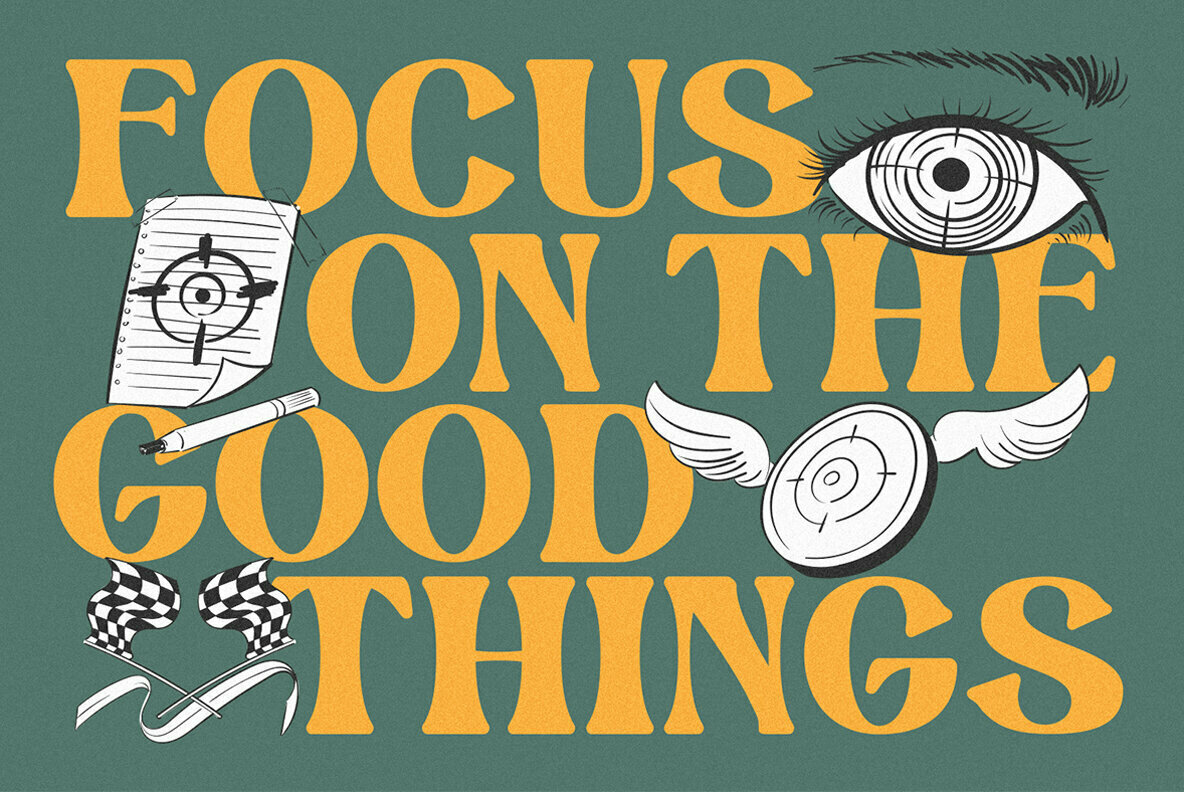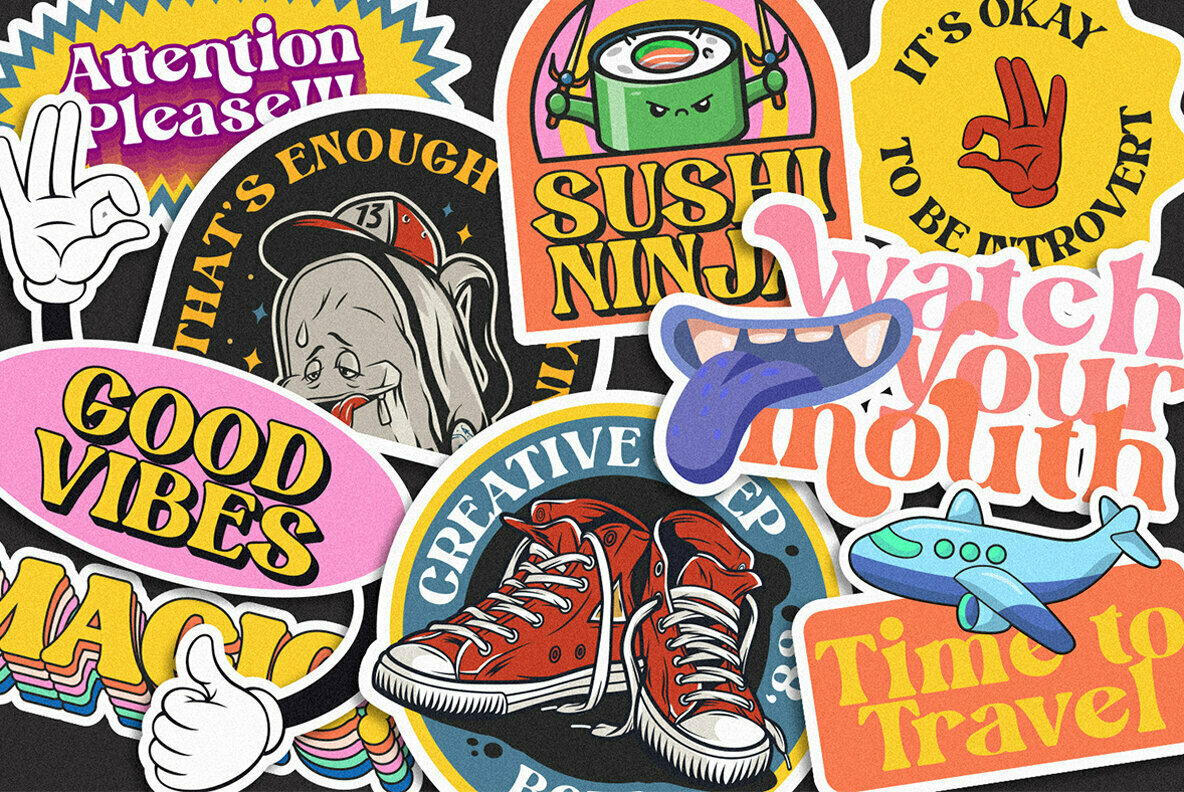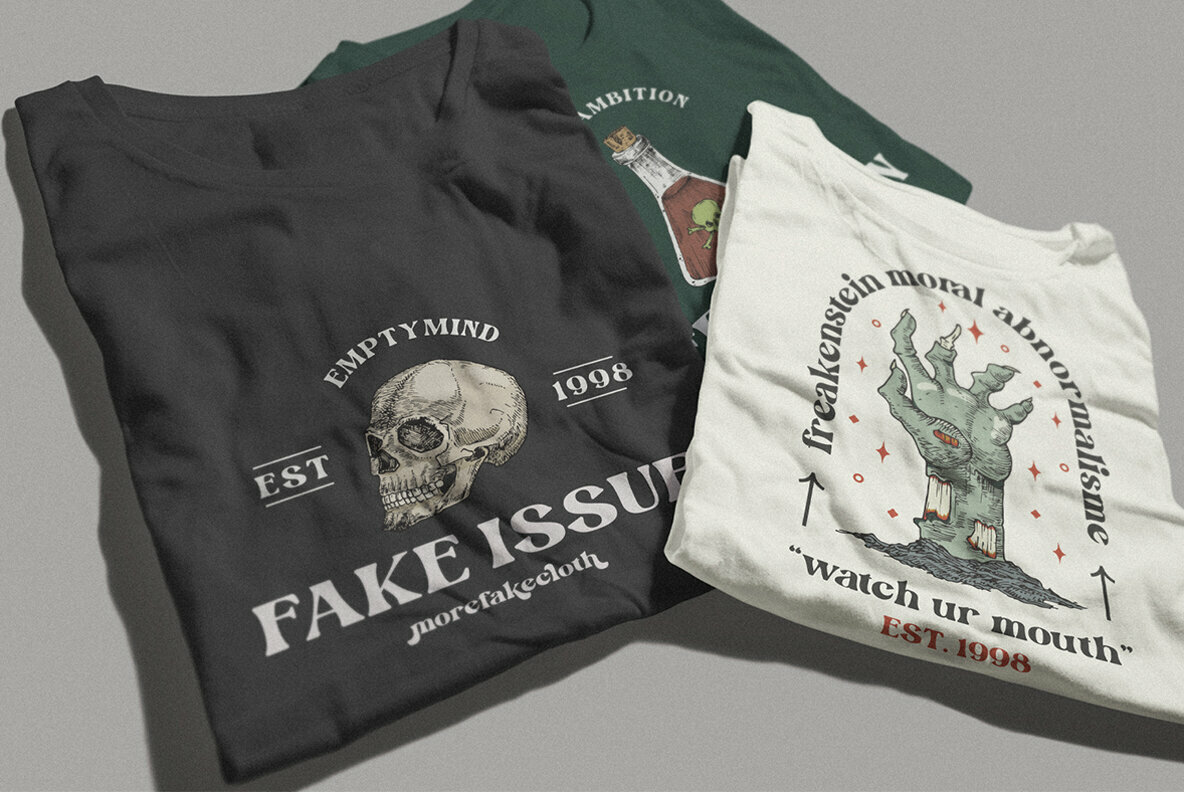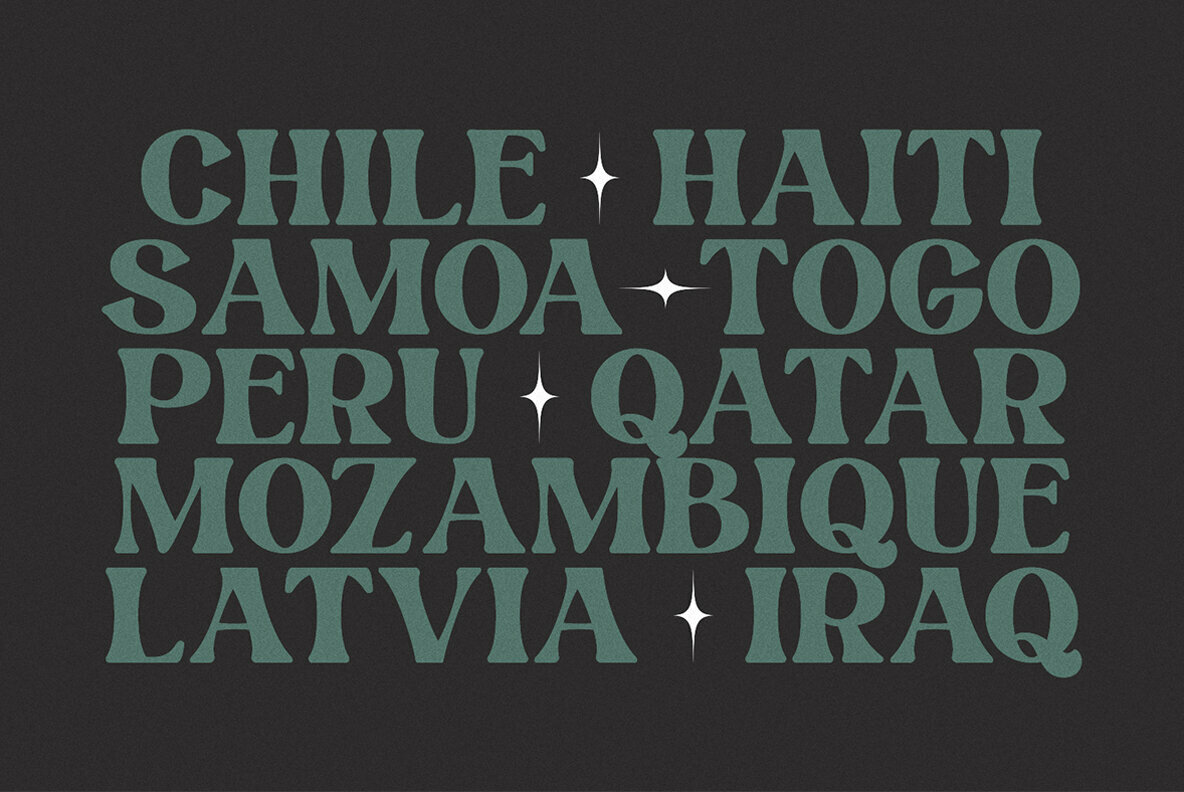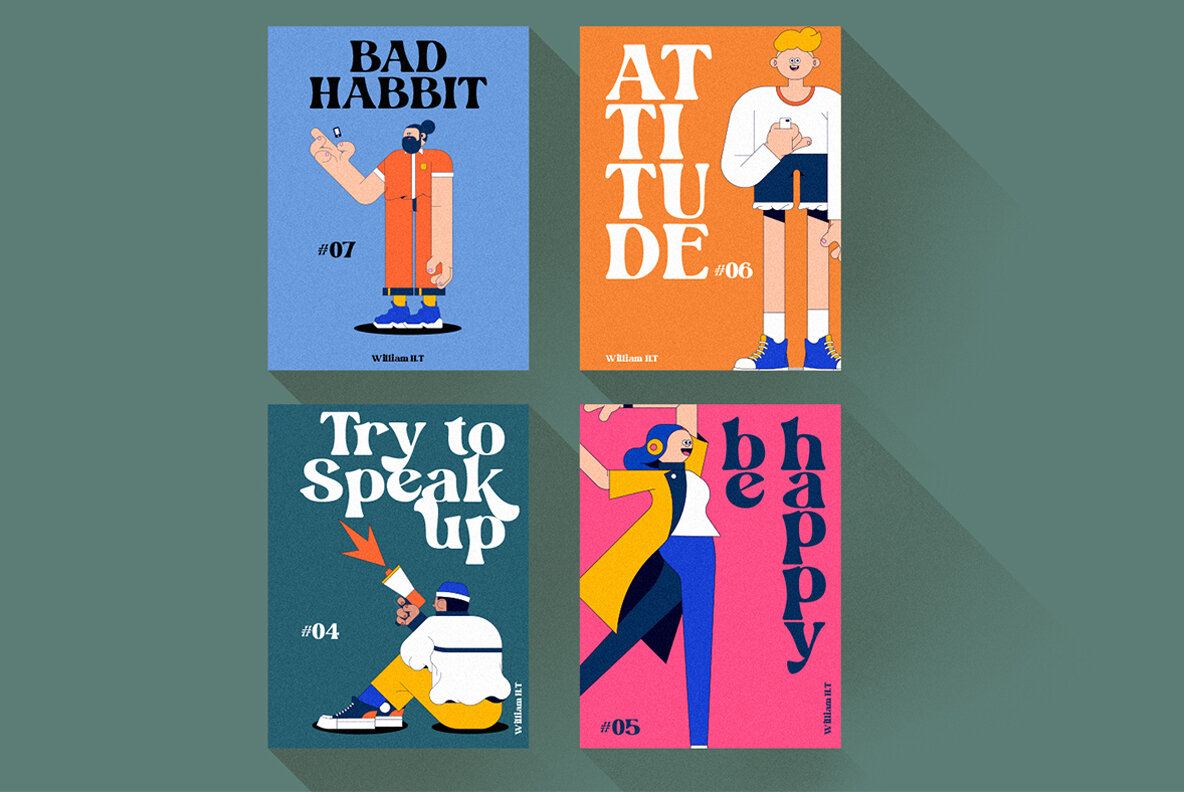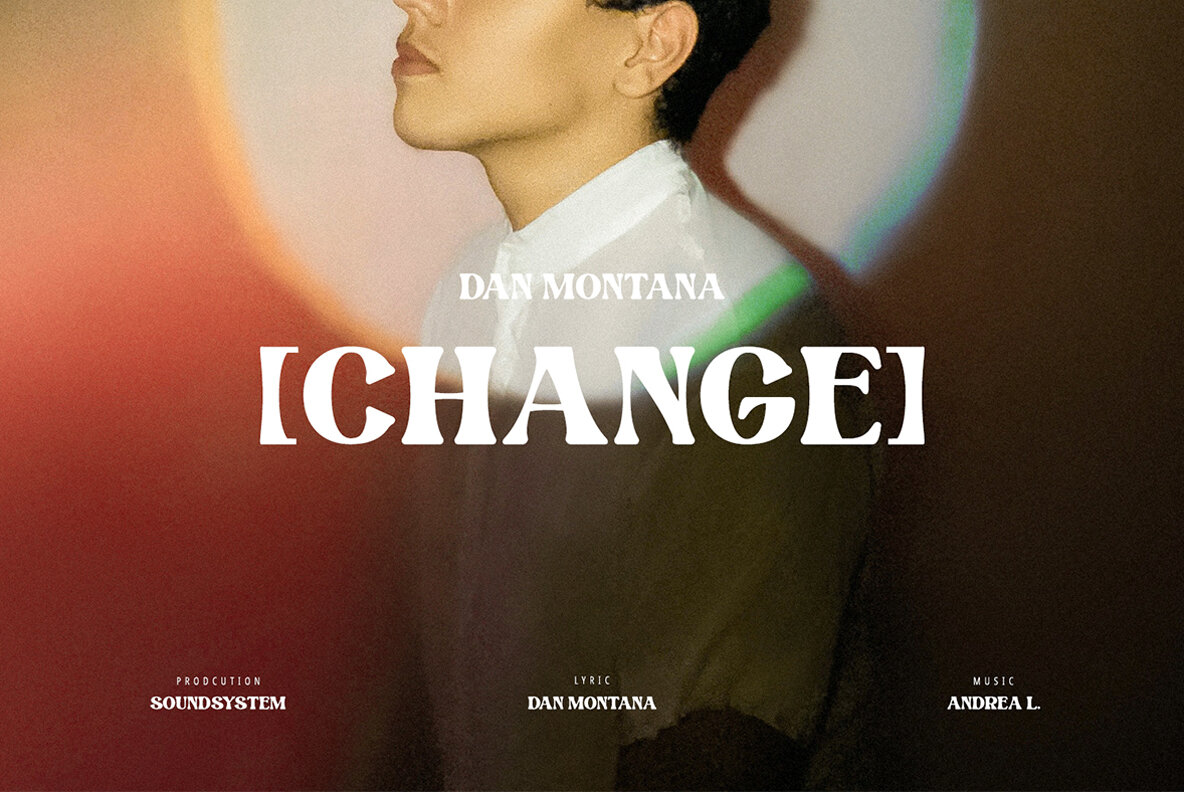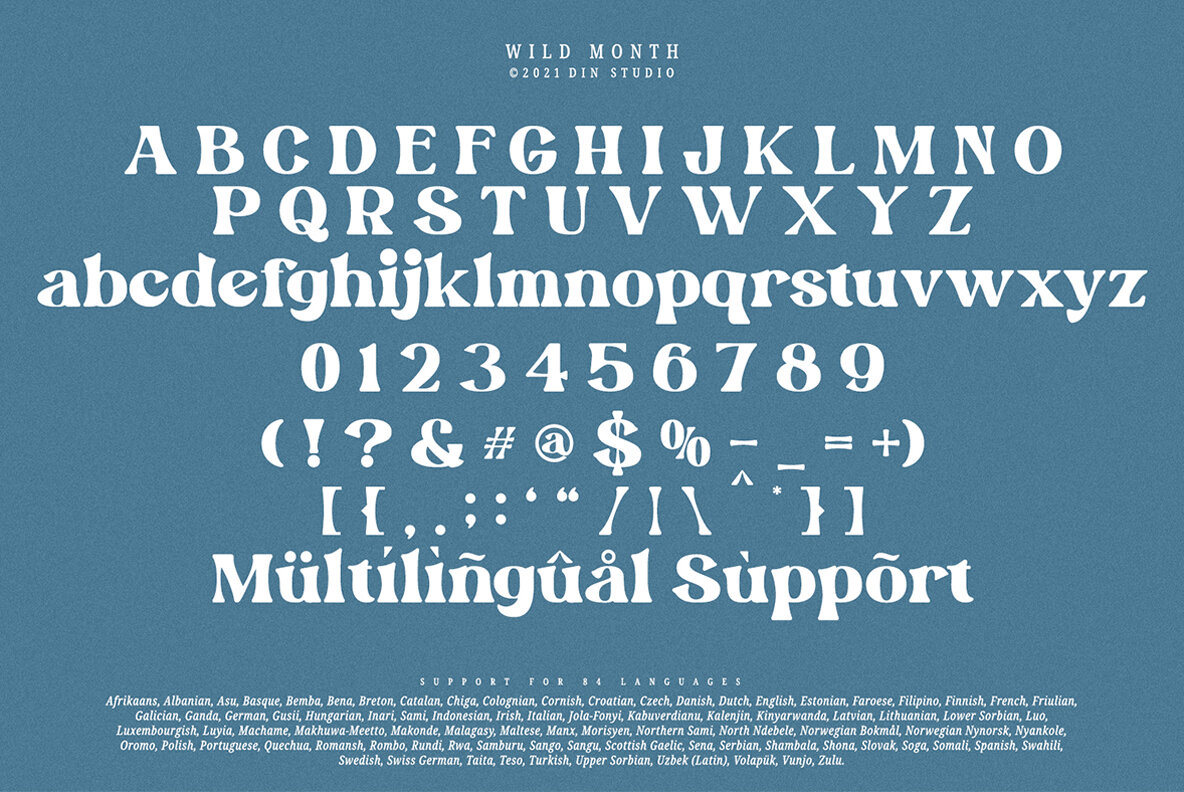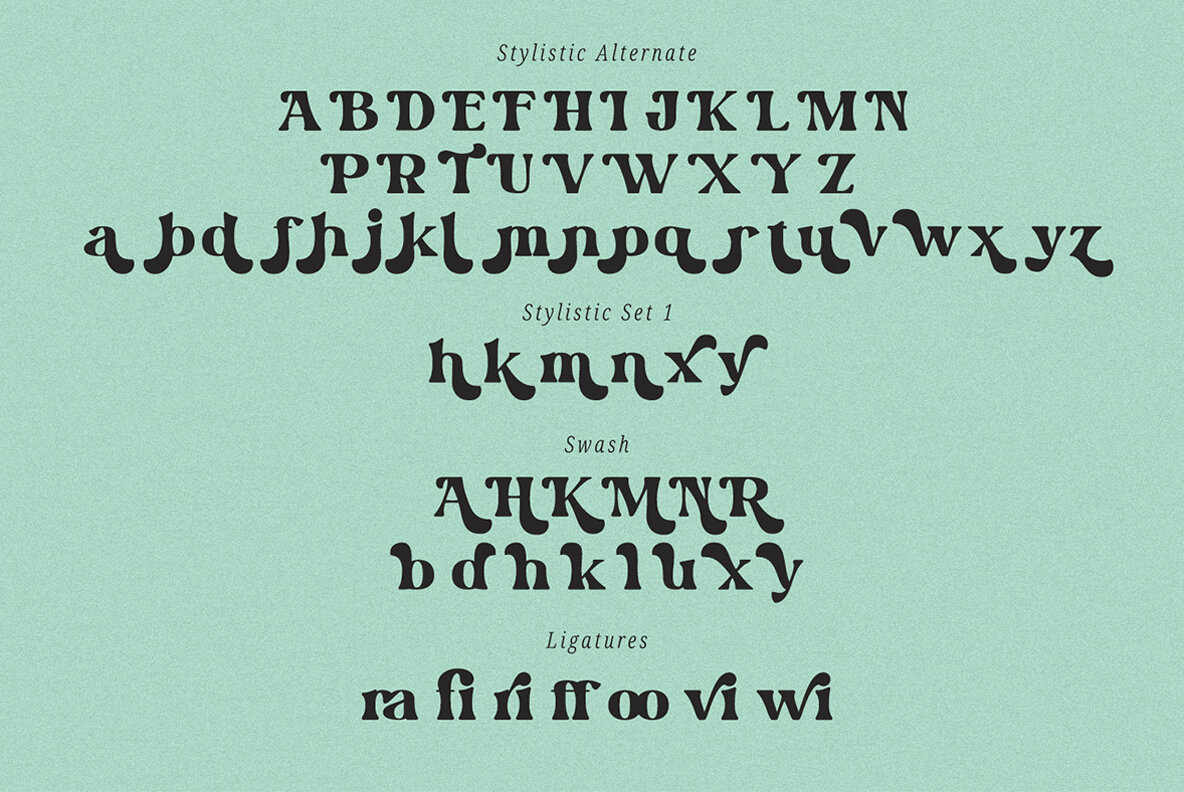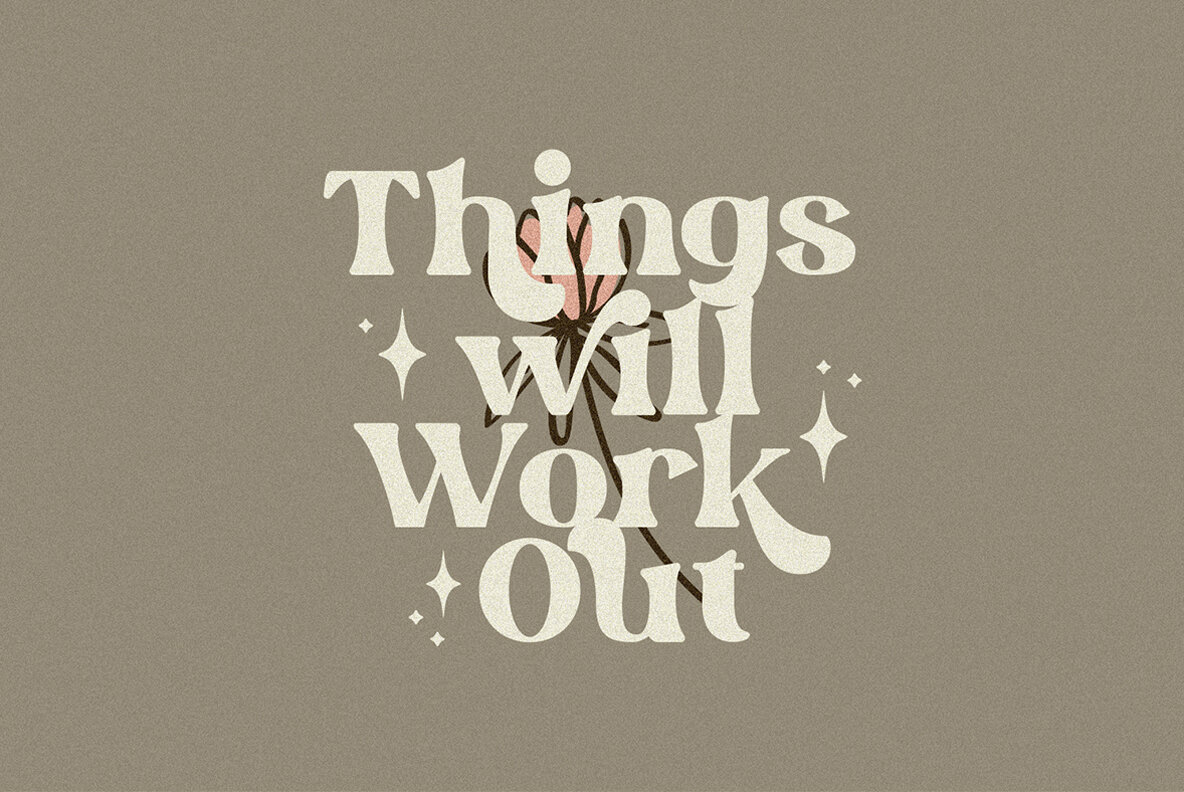
Wild Month Font
Wild Month
Wild Month captures the essence of artistic style, seamlessly merging the traditional elegance of serif fonts with modern creativity. This typeface, crafted in both uppercase and lowercase, offers designers an excellent choice for varied applications. It lends a contemporary touch to logos, book covers, posters, t-shirt designs, branding, and advertisements. Designed to reach audiences globally, Wild Month includes comprehensive multilingual support, ensuring your projects appeal universally while maintaining distinctive style.Wild Month: Artistic Serif Typeface for Modern Design